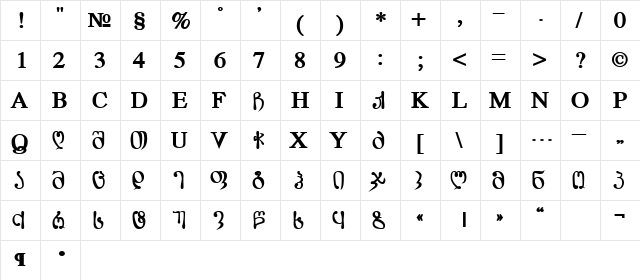
Geo LortkipanidzeMtavr Bold
Design Context for Geo LortkipanidzeMtavr Typeface
Geo LortkipanidzeMtavr offers clean, dependable letterforms without strong stylistic allegiance, making it a practical choice for designers who need flexibility. Its bold stroke weight gives it real presence on the page.